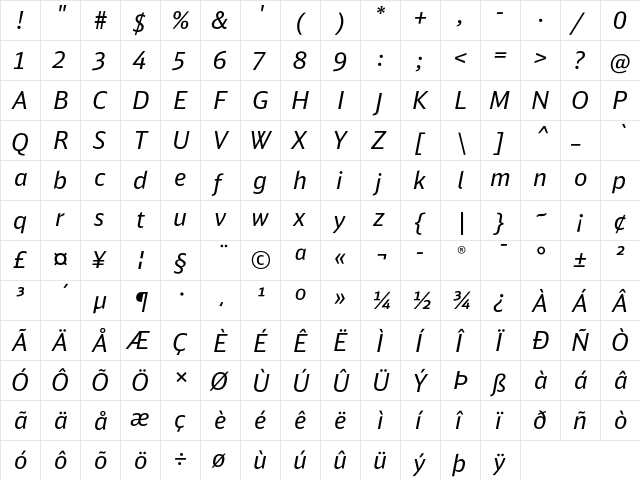
DB Sans Alternate Regular Italic
Design Context for DB Sans Alternate Typeface
DB Sans Alternate offers clean, dependable letterforms without strong stylistic allegiance, making it a practical choice for designers who need flexibility. The dynamic lean of this cut emphasises speed and emphasis in any layout.
Pro Tip: Use DB Sans Alternate for emphasis, pull quotes, and subheadings where its slanted energy can add rhythm to the layout.